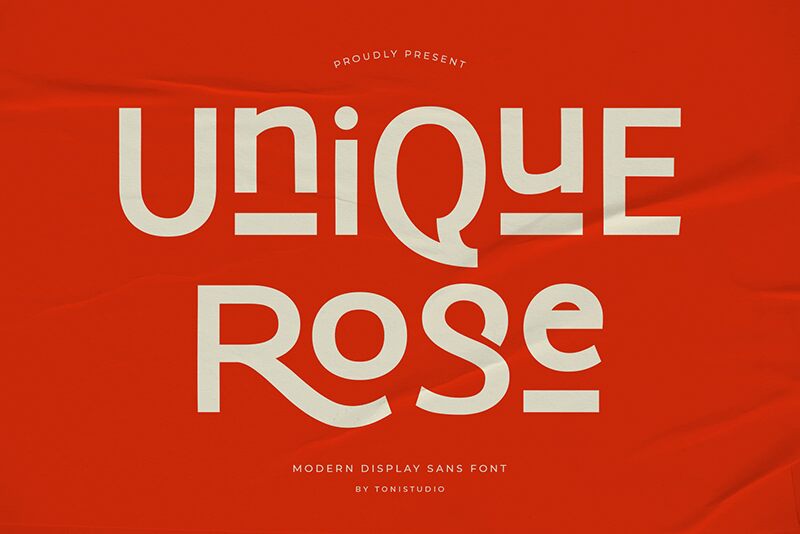
Unique Rose font from ToniStudio is a free sans serif font combining contemporary aesthetics with geometric forms and minimalist undertones. Designed with a modern appeal in mind, it embodies structured versatility combined with stylish visuals. The flowing elements of each character create a balanced display with instantly noticeable innovative touches.
Unique Rose is useful for presenting clear and informative displays, making it perfect for online magazines, publications, books, newspaper titles, etc. You can also include it in advertisements and posters, sign and shop names, business cards, product packaging designs, and flyers.